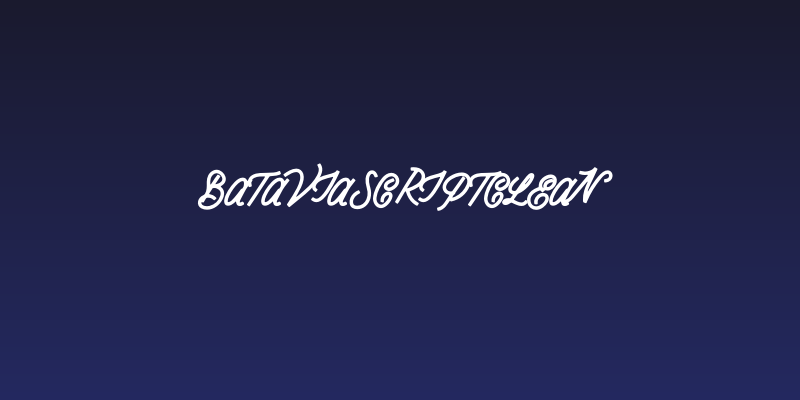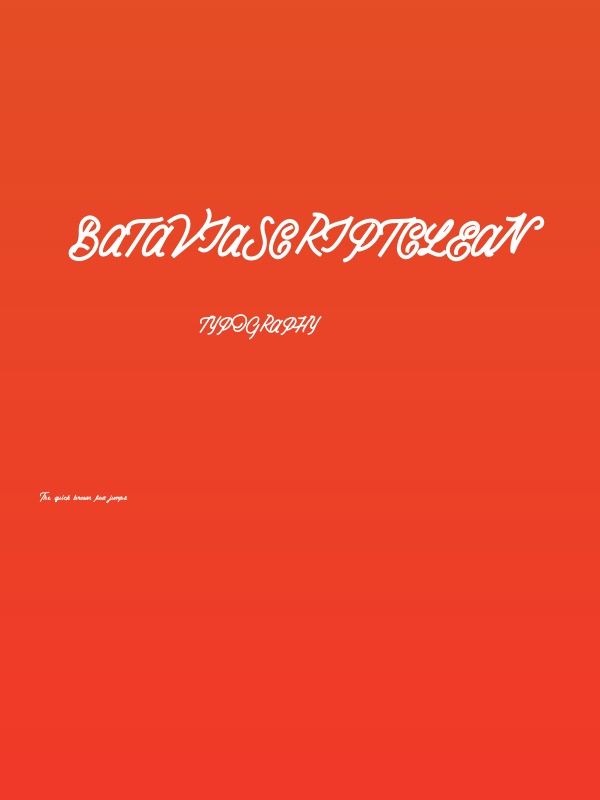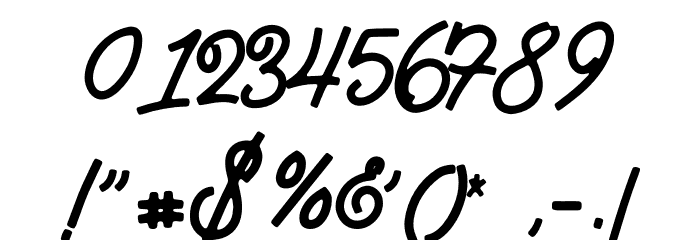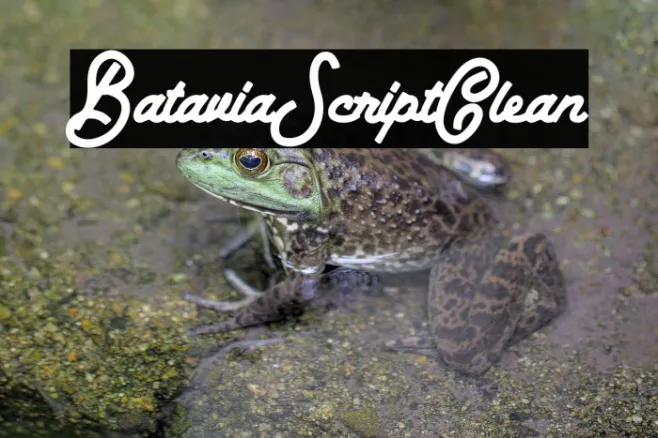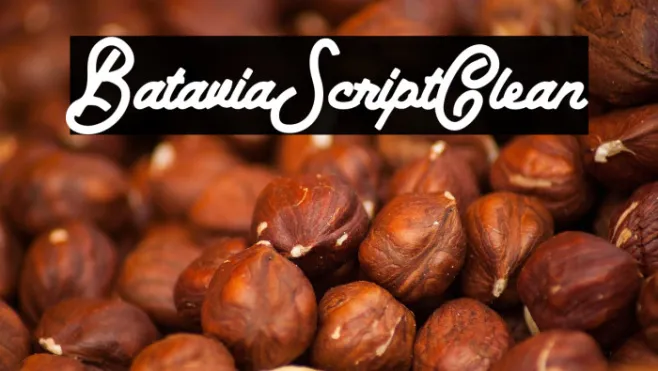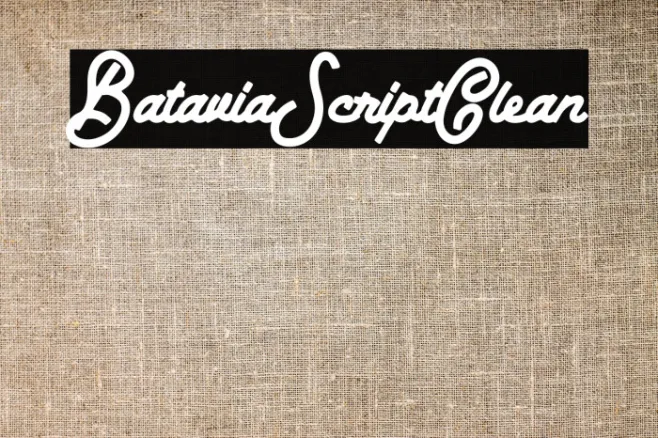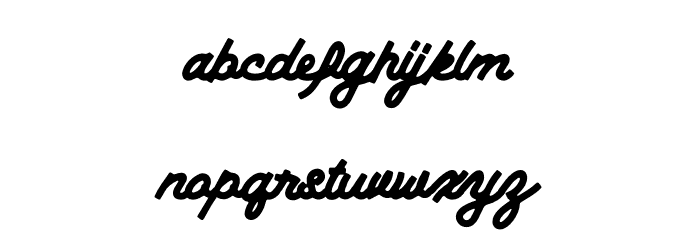
BataviaScriptClean Font
BataviaScriptClean Description
This font exudes a dynamic and energetic style with its bold, flowing script. The characters are interconnected, creating a sense of movement and fluidity. The uppercase letters are particularly striking, with dramatic loops and curves that give them a distinctive flair. The lowercase letters maintain a consistent style, complementing the uppercase with their own elegant swirls. Numbers and special characters are crafted with the same attention to detail, ensuring a cohesive look across all elements. The overall design is both artistic and legible, making it suitable for a variety of creative applications.